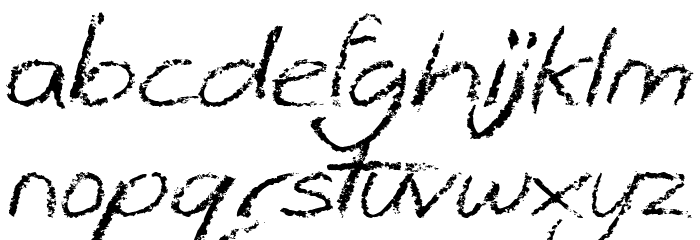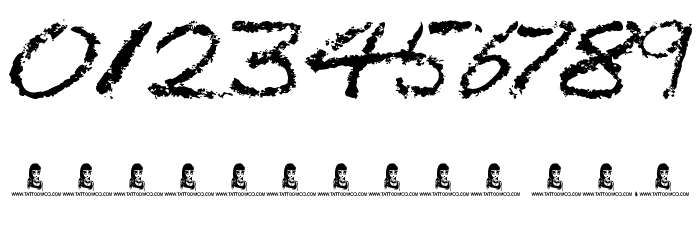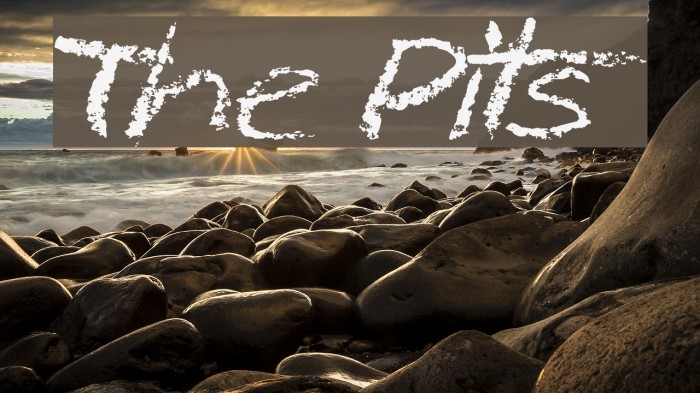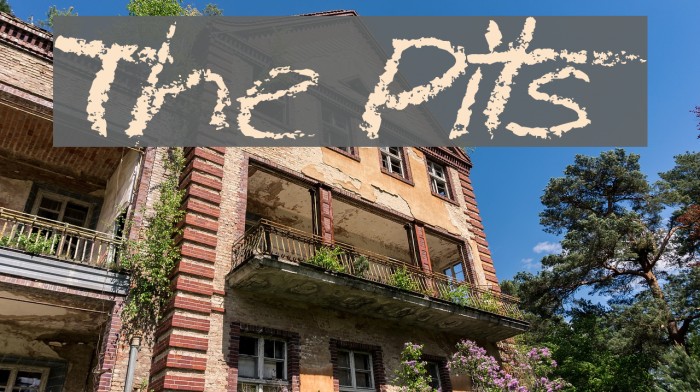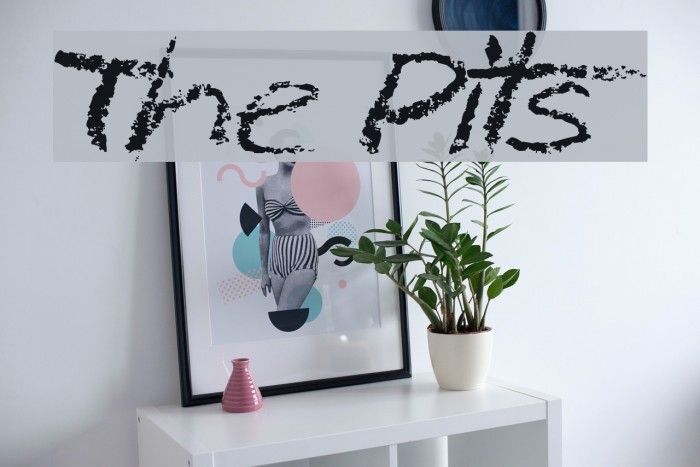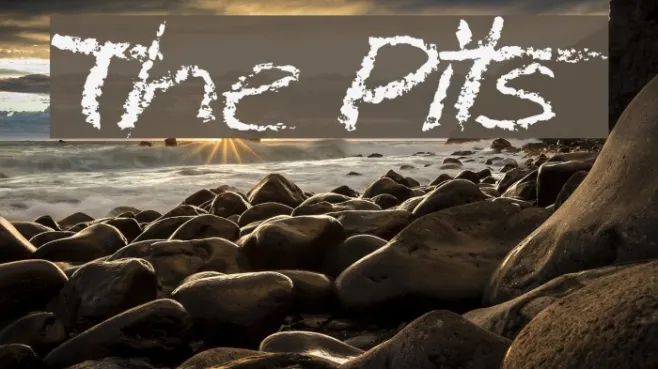
The Pits Font
This font features a rough, textured appearance reminiscent of hand-drawn or chalk-like strokes. The letters have an uneven, organic quality, giving them a dynamic and energetic feel. The uppercase and lowercase letters maintain a consistent style, with a slightly slanted orientation that adds to the casual, informal vibe. The numerals and special characters follow the same aesthetic, ensuring a cohesive look across all elements. This font's unique texture and style make it stand out, ideal for projects that require a bold, artistic touch.
A textured, hand-drawn style font with a dynamic and informal appearance.
- Proposed Projects: Ideal for artistic projects, posters, album covers, or any design requiring a bold, creative touch.
- Use Case: Headlines, Posters, Artistic Designs